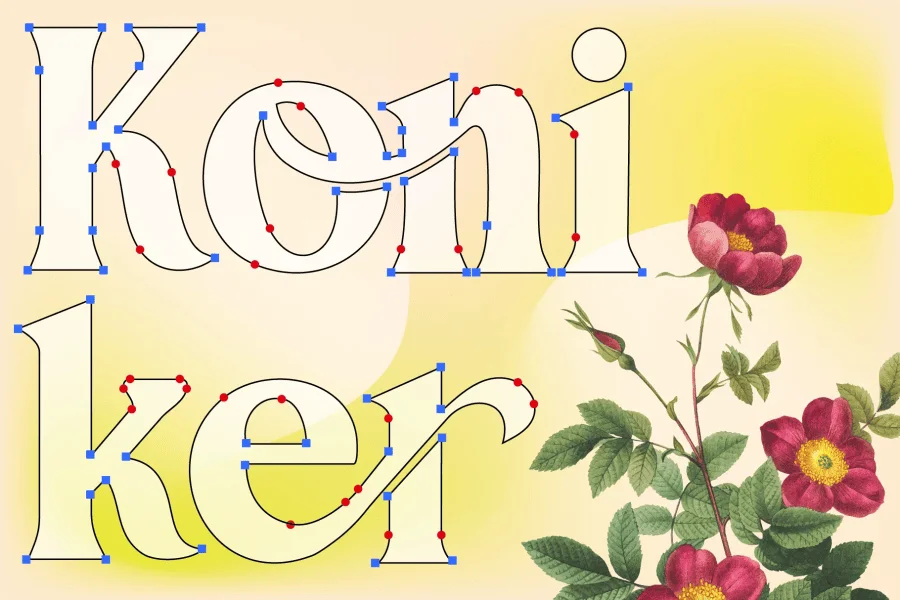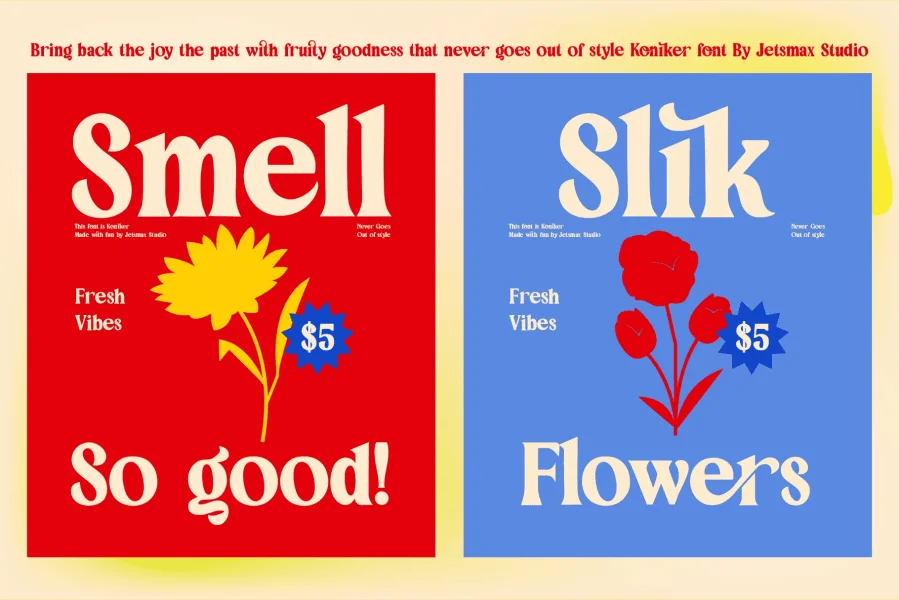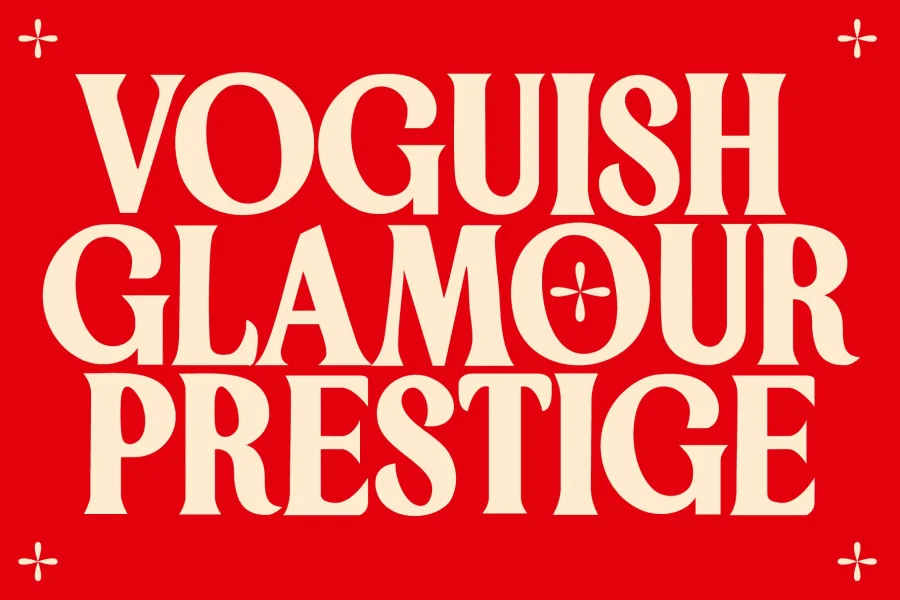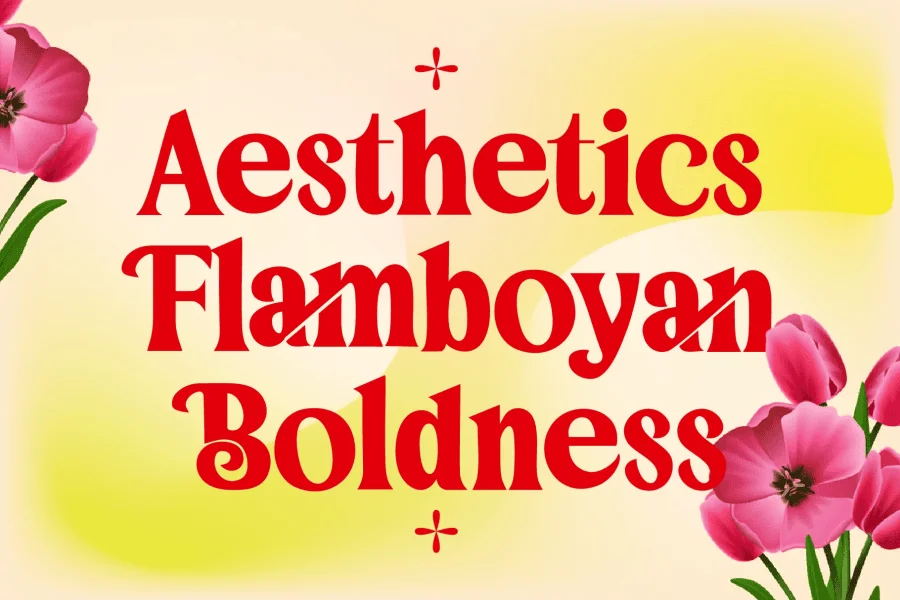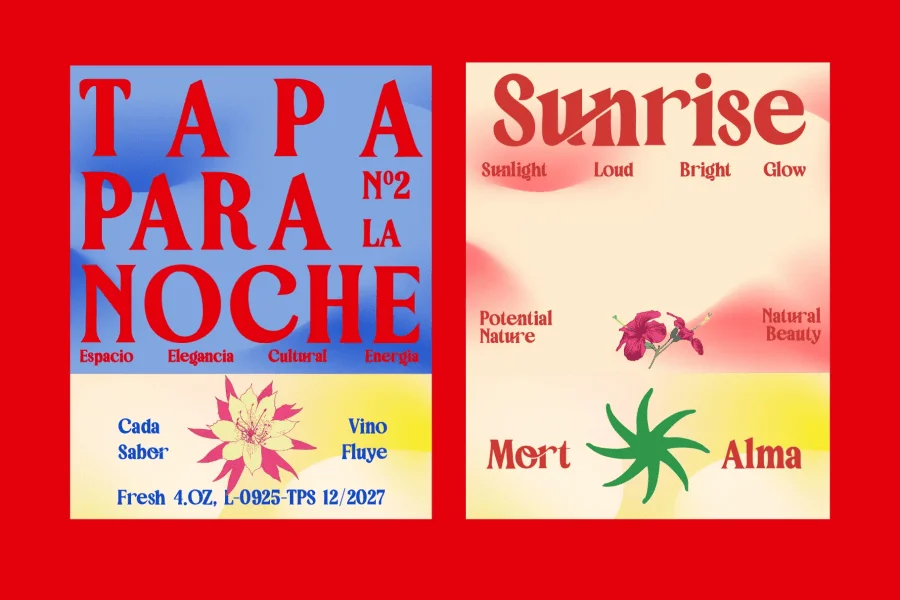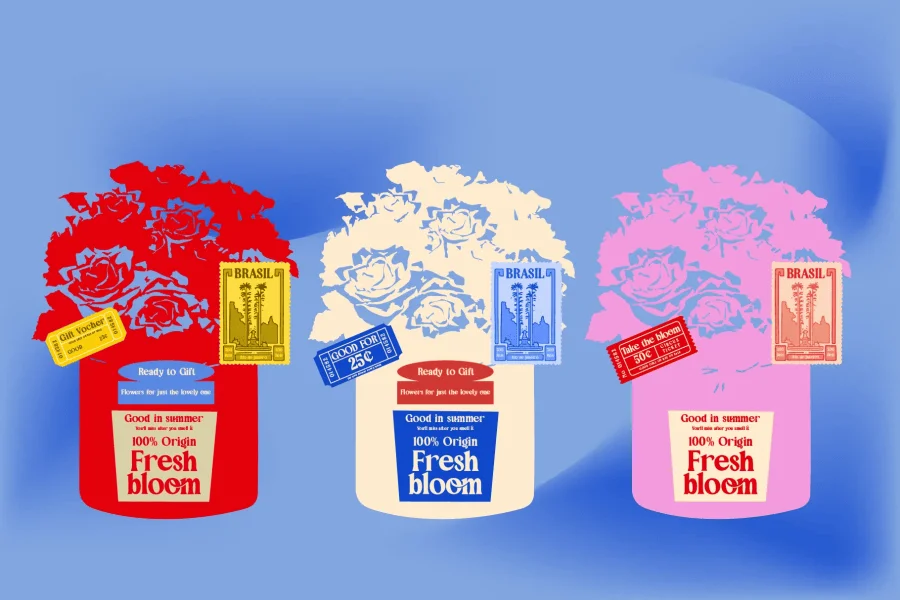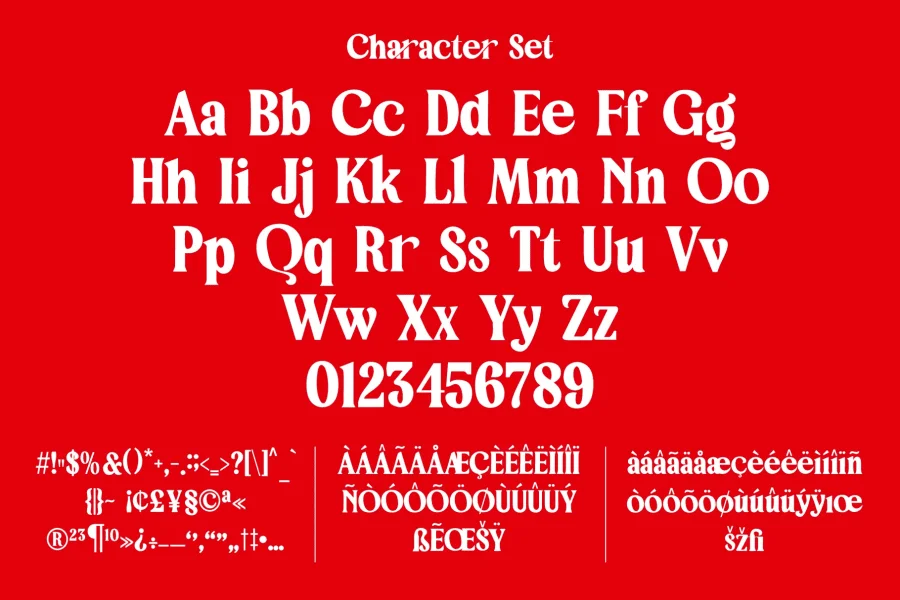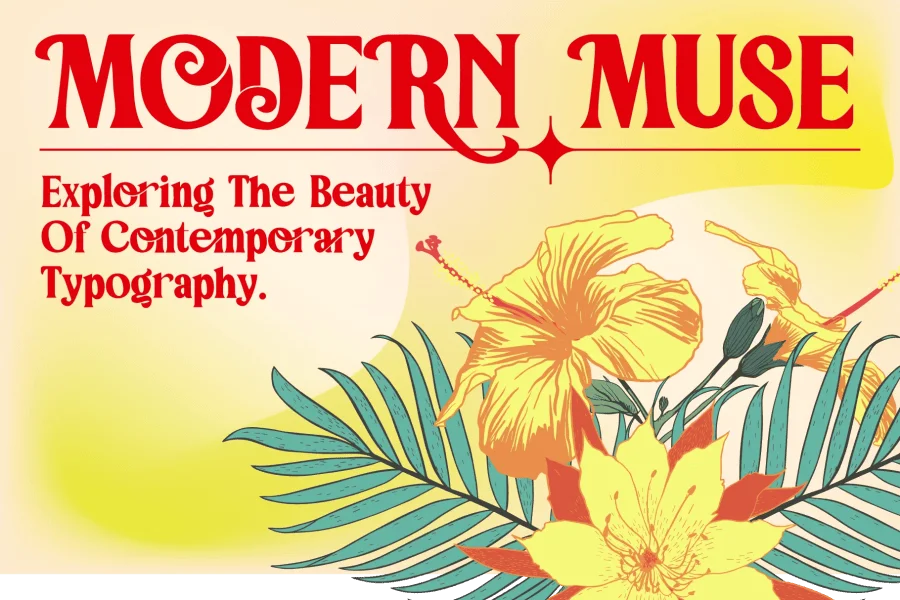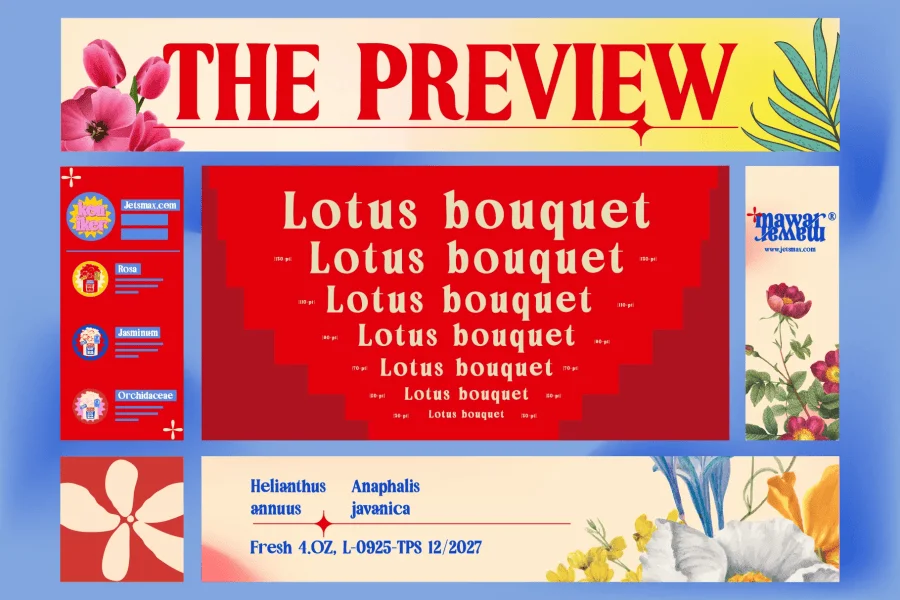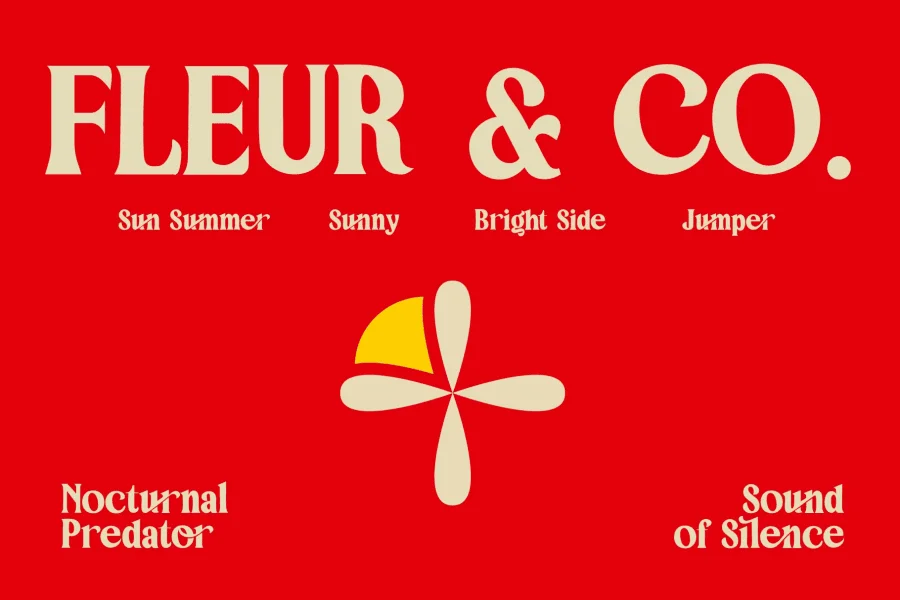
Koniker is a display typeface designed to take center stage. Merging a bold, authoritative structure with fluid, organic curves, this font offers a flawless balance between modern elegance and a chic retro revival.